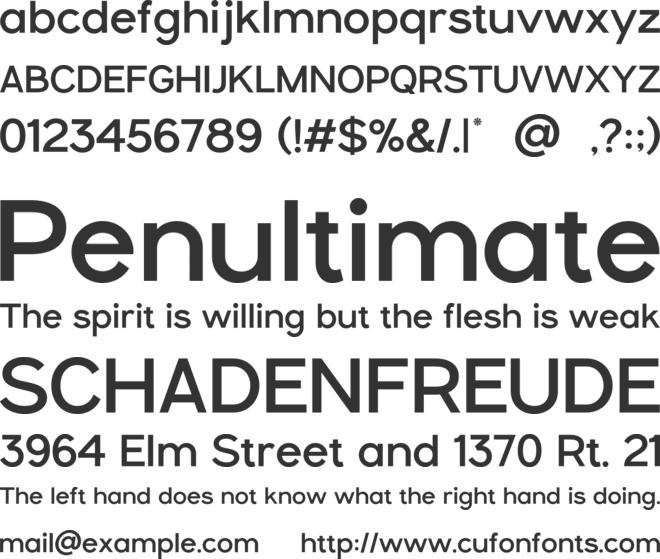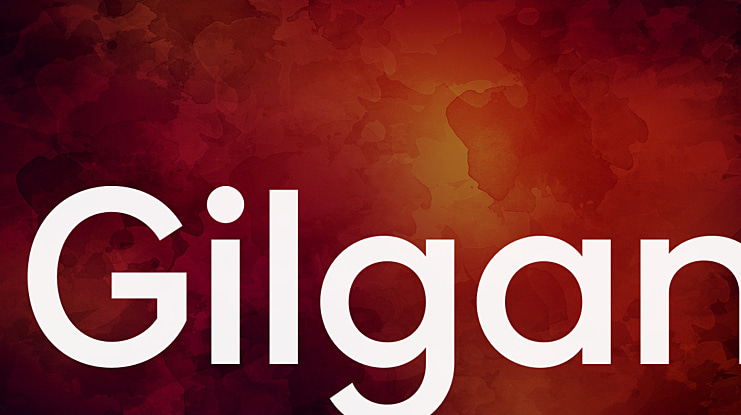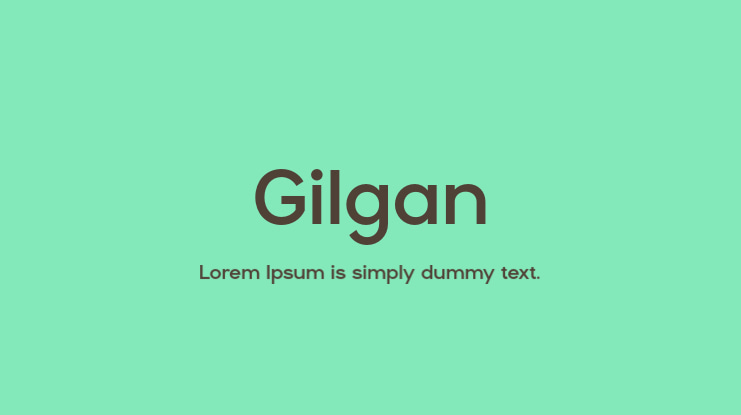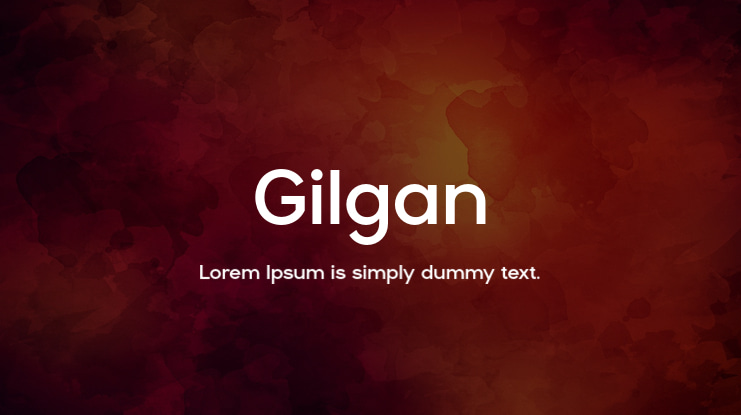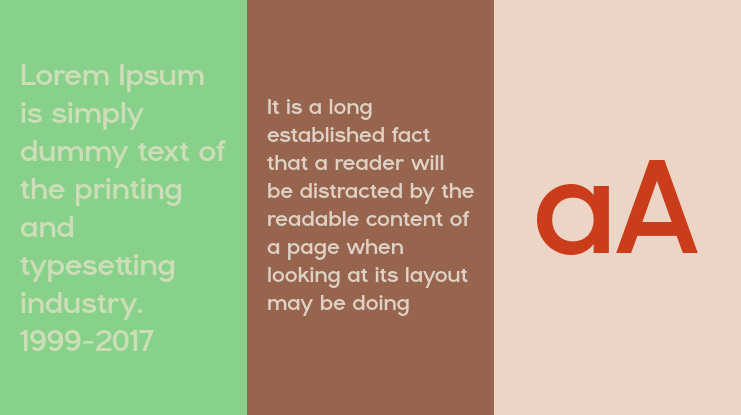
Gilgan Font
This is a functional sans serif that includes open character openings, a uniform distribution of white and black, and excellent readability. Best used as a display for headings, logos, branding, magazines, product packaging and invitations. Gilgan come with clean lines and smooth curves give any project an extra touch of class.